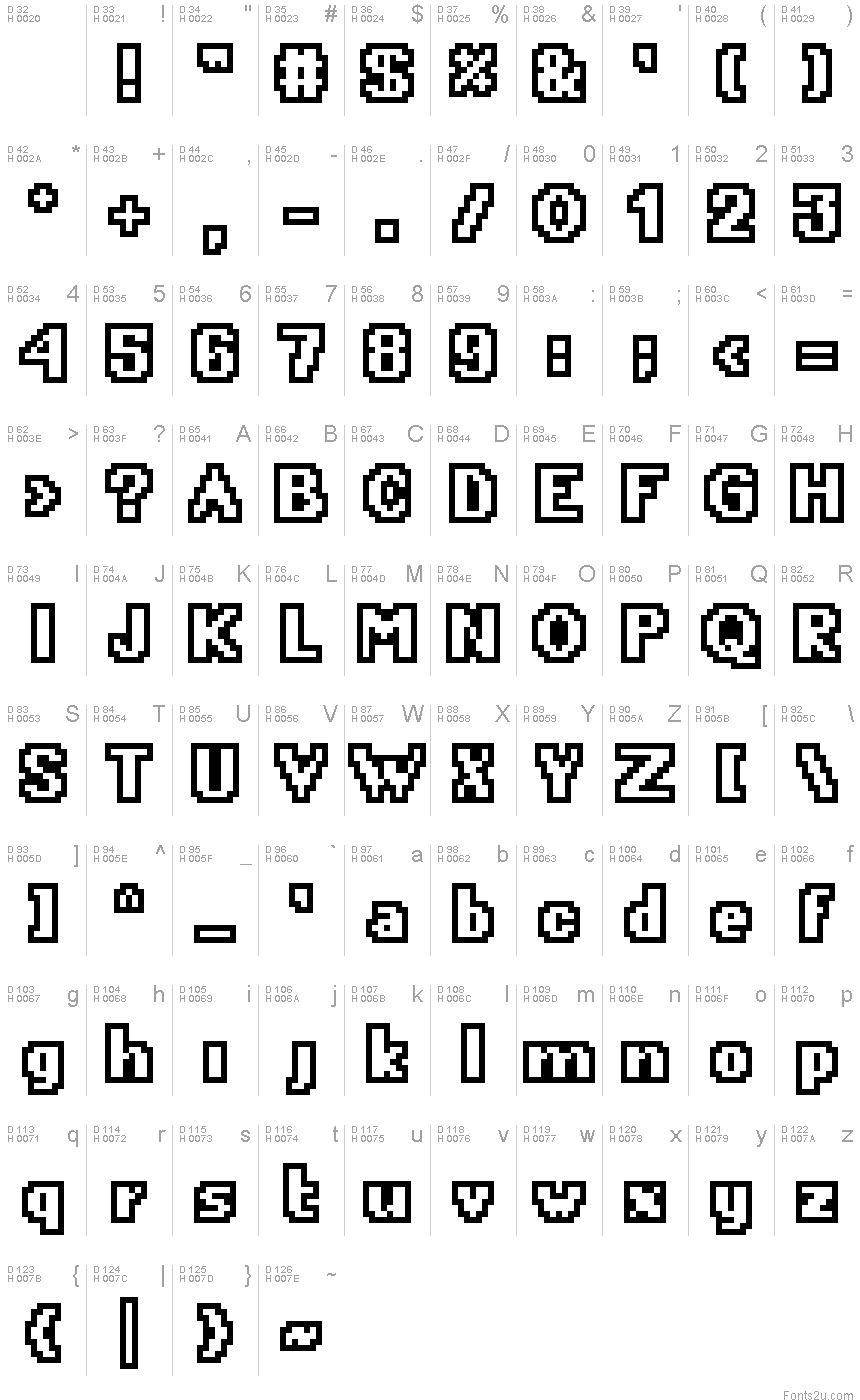
CrunchyBeefOutli
A font specifically made for use in Adventure Game Studios. Best viewed at 10 pixel size. Outline and Alias fonts are to be layered over the base font.